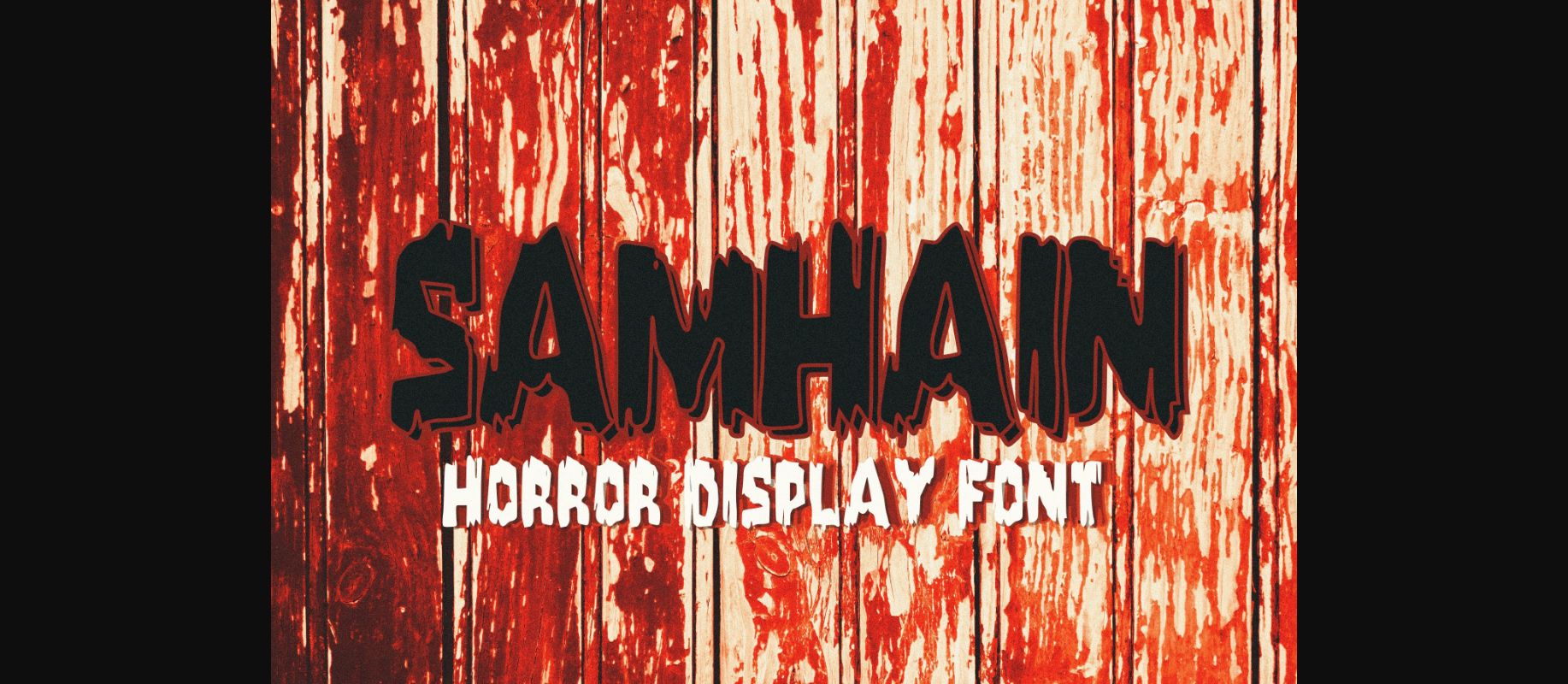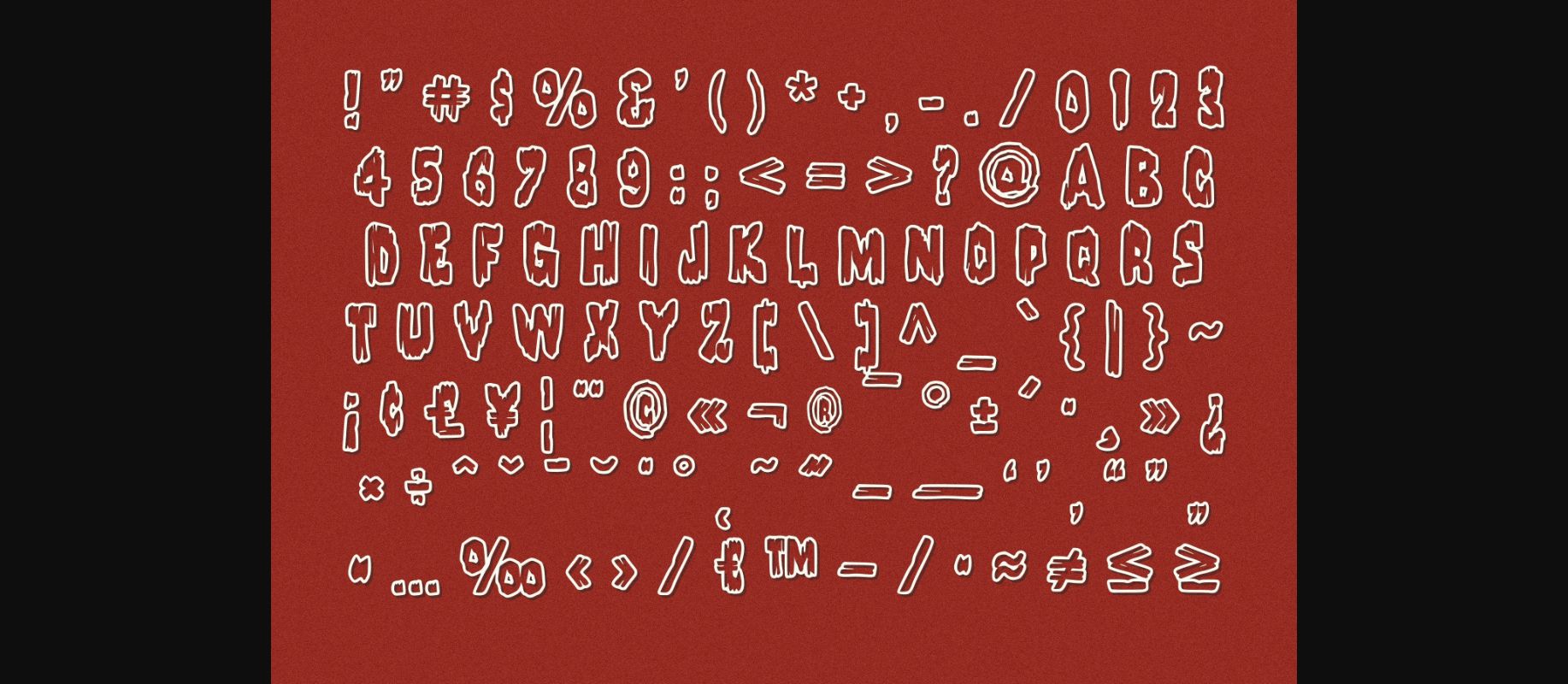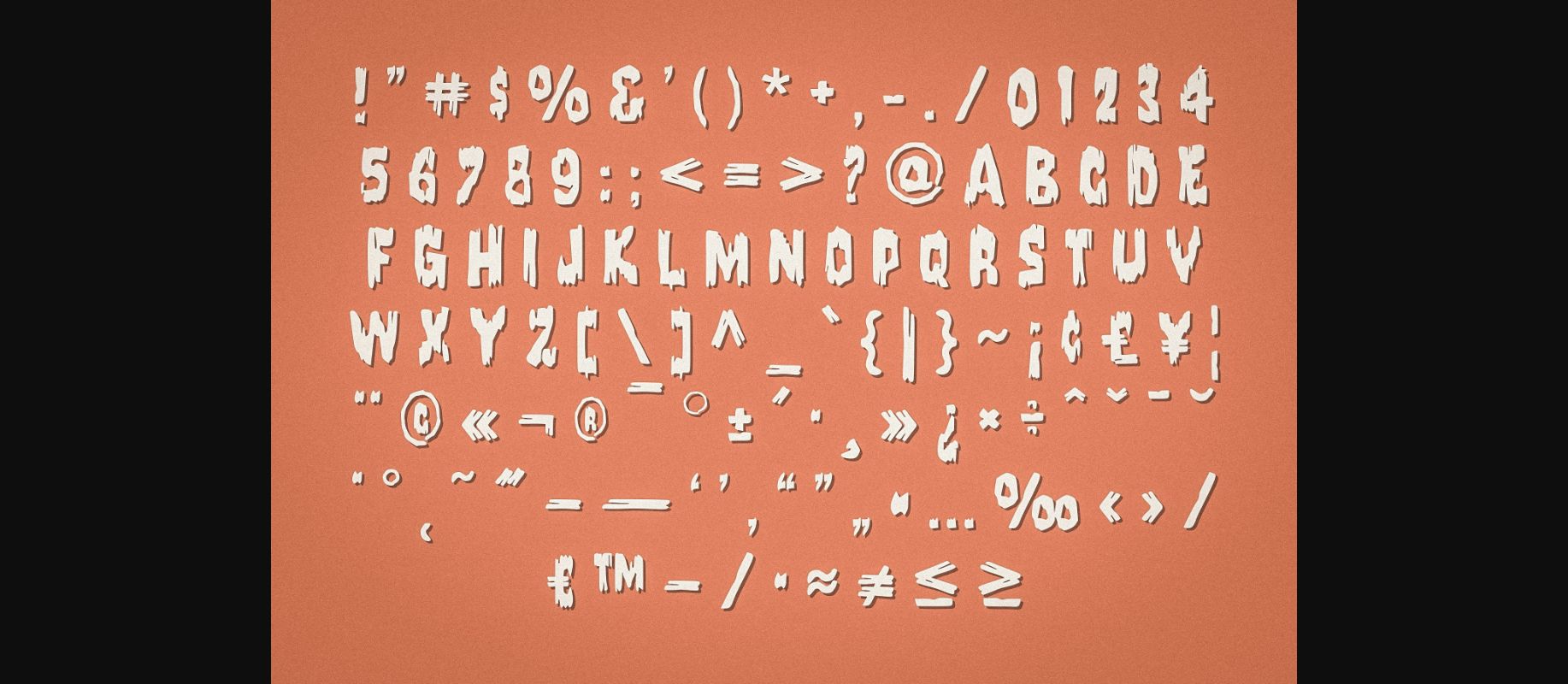
Samhain Font
About Samhain Font
Samhain is an all-caps horror/distressed decorative font. It is perfect for Halloween or any project that needs to stand out!